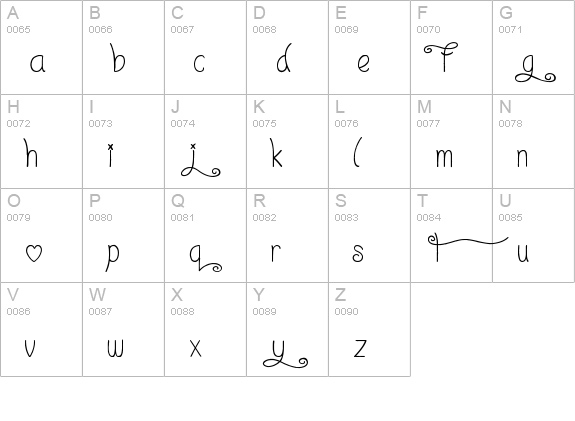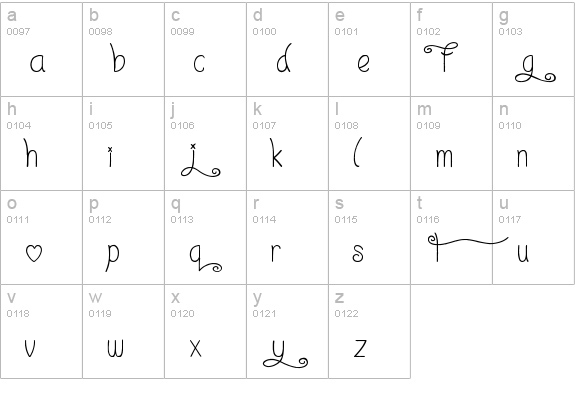
Things People Do For Love!.. is a free for personal use font in the Script > Handwritten category. It has been downloaded 197 times and is available for Windows, Mac and Linux.
Introducing the mesmerizing and enchanting font, Things People Do For Love! This unique typeface captures the essence of love and romance, evoking emotions that are bound to make your designs come alive. Its delicate curves and elegant strokes create a sense of warmth and affection, making it perfect for expressing love letters, wedding invitations, or heartfelt messages. What makes Things People Do For Love! even more special is that it is available for free! Yes, you heard it right. This extraordinary font can be freely downloaded at FontsMarket.com, allowing you to effortlessly add a touch of love to your projects without any cost. With its wide range of characters and beautifully crafted ligatures, Things People Do For Love! offers endless possibilities for creating breathtaking designs. Whether you are designing a greeting card for your loved ones or working on a romantic branding project, this font will help you convey your emotions with grace and style. Furthermore, the versatility of Things People Do For Love! is unmatched. It seamlessly blends with various design styles, from vintage and retro to modern and contemporary, adding a romantic flair to any composition. The attention to detail in each letterform ensures a smooth reading experience while maintaining its distinct charm. So why wait? Express your love and creativity with Things People Do For Love! font, freely available for download at FontsMarket.com. Embrace the power of love and let this font guide you in creating heartfelt designs that will leave a lasting impression on your audience. Download it now and let the magic of love unfold in your projects!